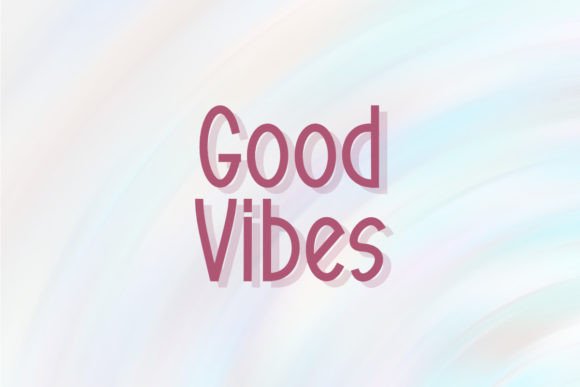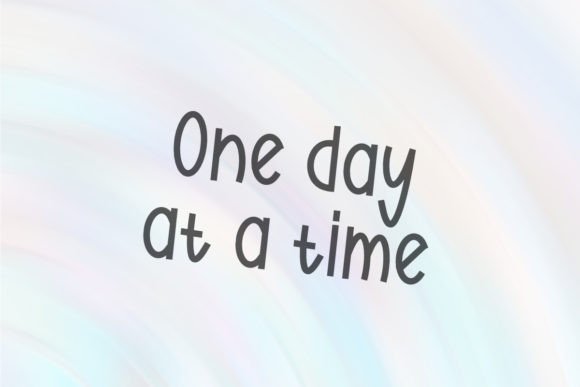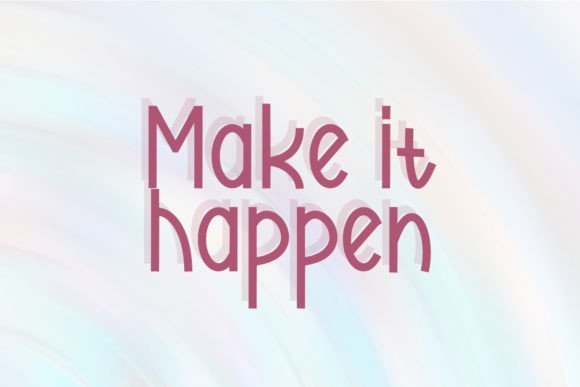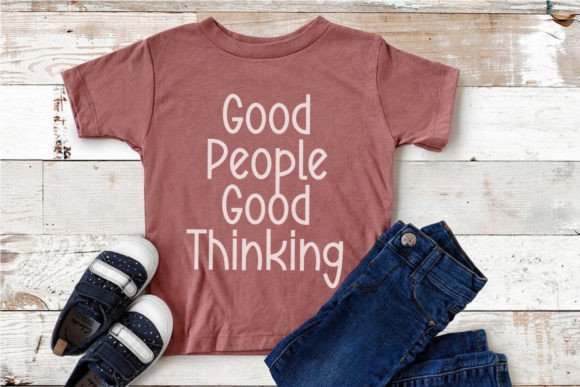
Feminine Boys Font – Free Download
Introduction to Feminine Boys Font
Feminine Boys is a clean, tall & skinny font with a bright and playful personality.
Looks amazing on t-shirts, bags, banners, posters etc .
Key Features of Feminine Boys Font
Why Choose Feminine Boys Font?